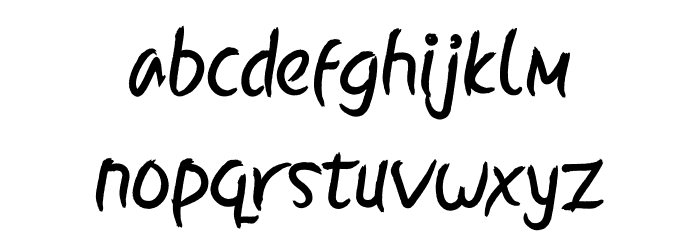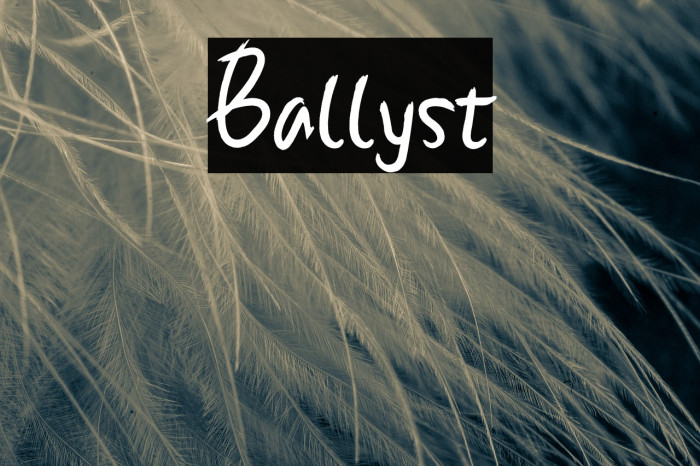
Ballyst Font
This font exhibits a dynamic and energetic style with a handwritten appearance. The letters are slightly slanted, giving a sense of motion and fluidity. The strokes vary in thickness, adding a lively and informal touch. The uppercase and lowercase letters maintain a consistent style, with rounded edges and a playful character. The overall design is casual yet expressive, making it suitable for projects that require a personal or creative touch. The font's unique style can add personality and warmth to any design.
A dynamic, handwritten-style font with a playful and energetic character.
- Font: Ballyst
by twinletter - Weight: Regular
- Proposed Projects: Ideal for greeting cards, invitations, personal branding, and creative projects that require a personal touch.
- Overall Style: Casual, Playful
- Use Case: Headlines, Logos, Invitations